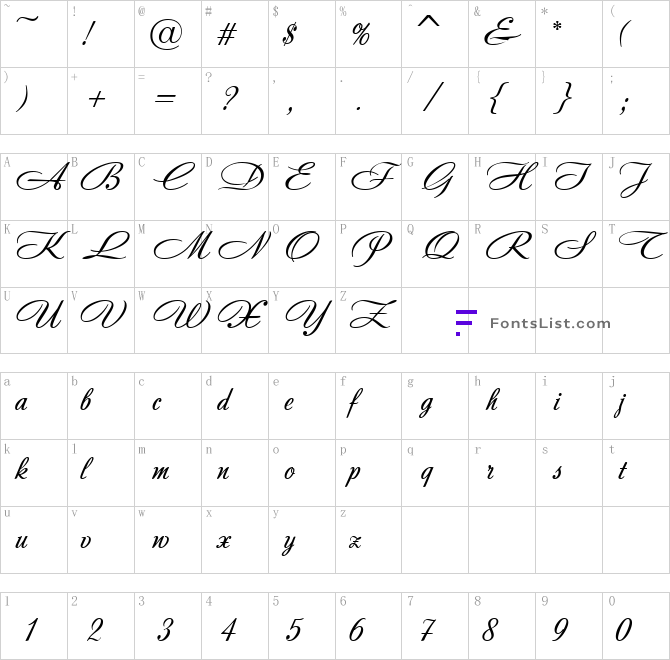
- Font Name:AndantinoJF
AndantinoJF.ttf is a very beautiful artistic font, AndantinoJF.ttf is widely used in the design and printing of various books and pictures,AndantinoJF.ttf has a strong visual impact,AndantinoJF.ttf is a commonly used font in newspapers, magazines and books, and is used in posters, e-commerce Poster design, store design, logo design, font design and other fields.AndantinoJF.